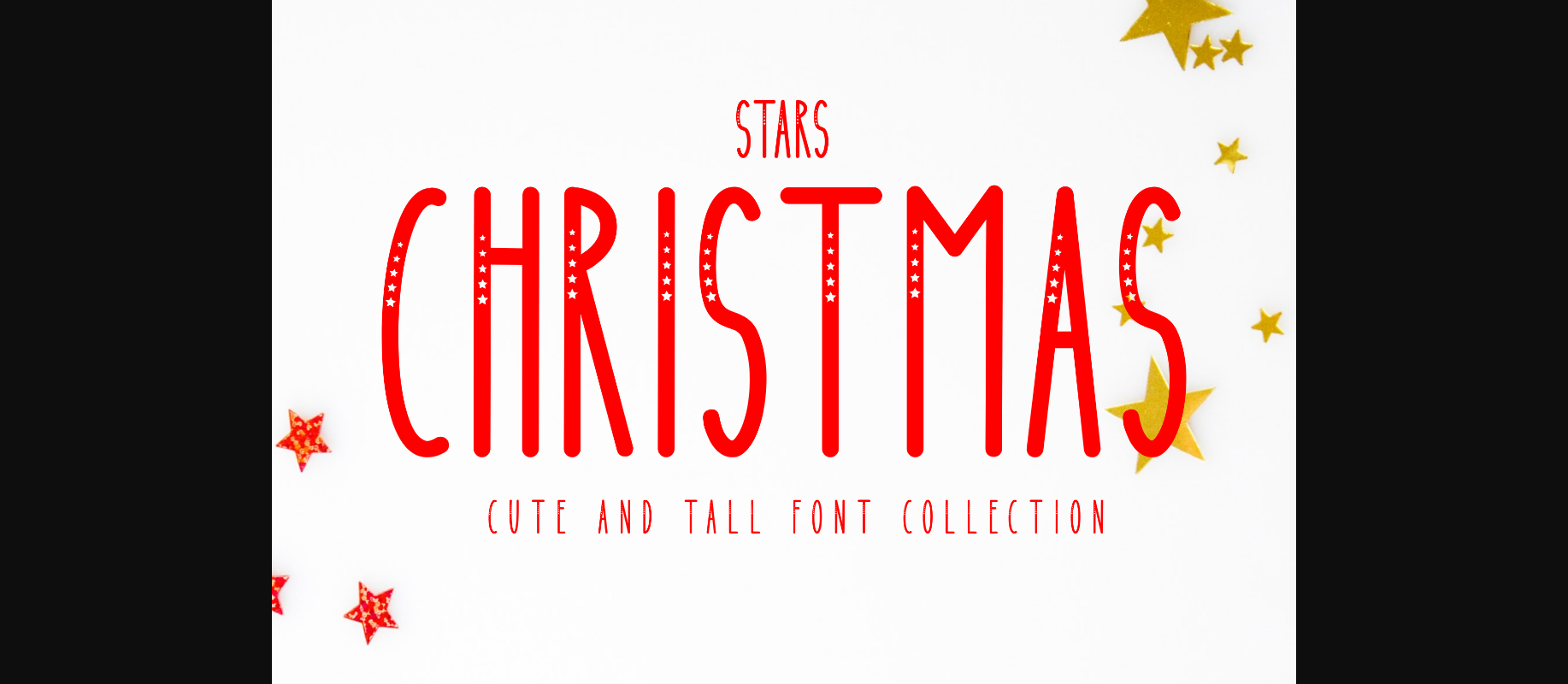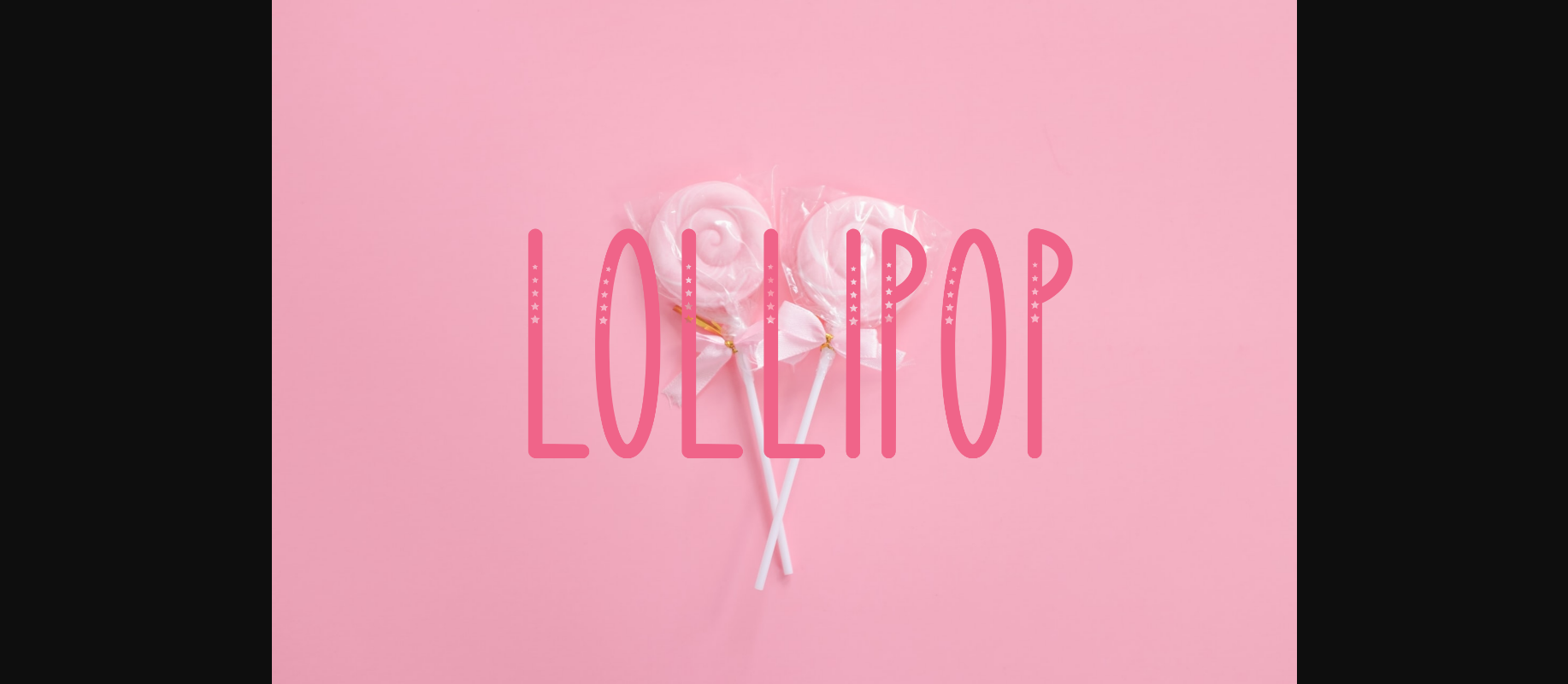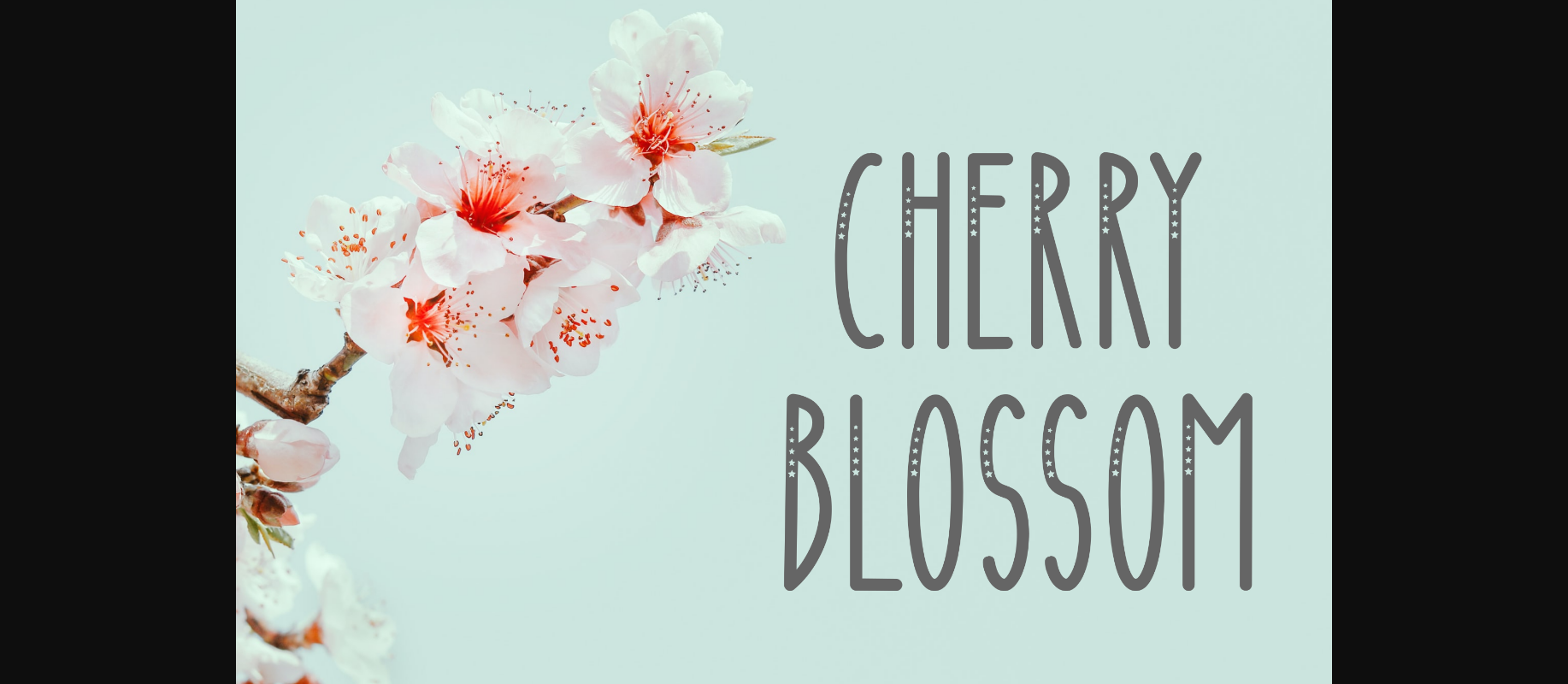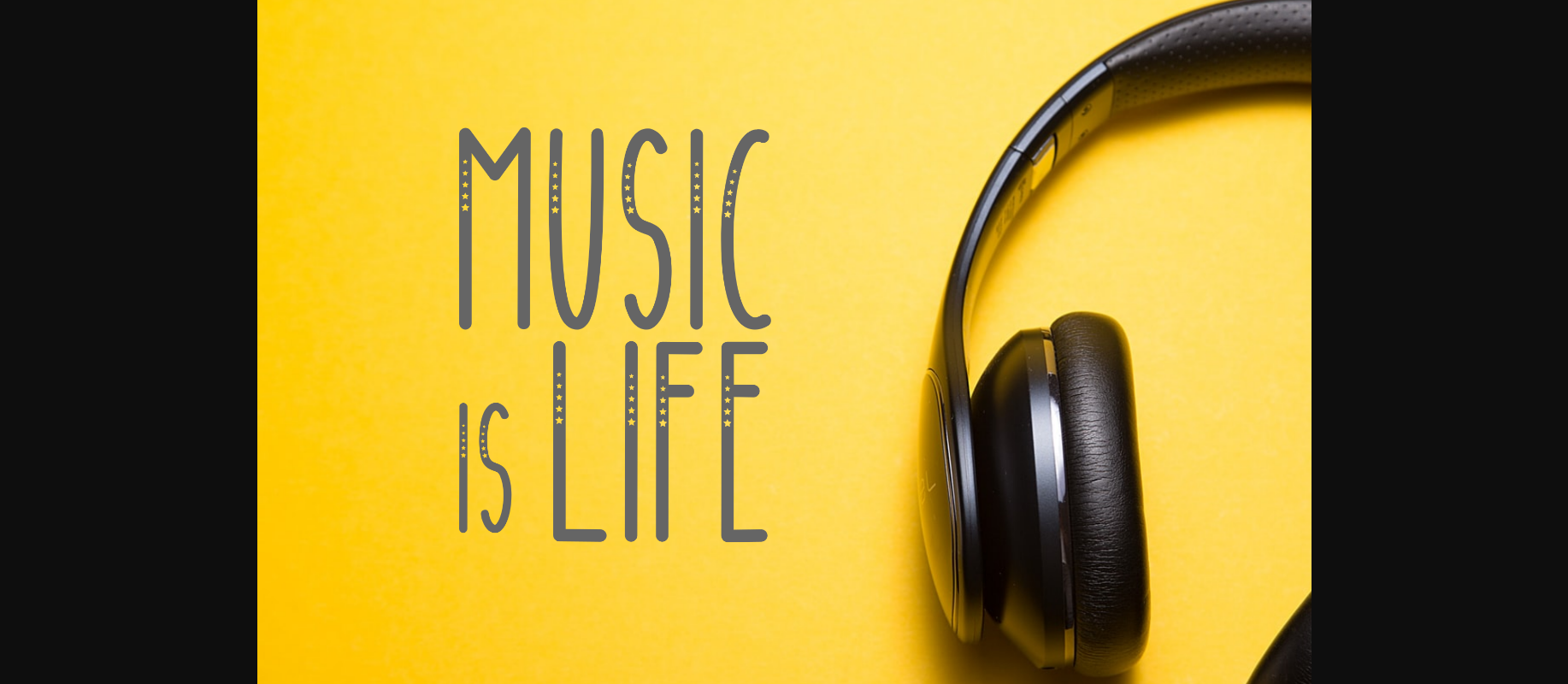
HomeDecorative FontsStars Christmas Font Decorative Fonts Stars Christmas Font FacebookXPinterestWhatsApp 1 of 6 ... Stars Christmas Font Poster 2... Stars Christmas Font Poster 3... Stars Christmas Font Poster 4... Stars Christmas Font Poster 5... Stars Christmas Font Poster 6... About Stars Christmas Font Stars Christmas is a tall, cute, and simple decorative font. Its natural and unique style makes it incredibly fitting to a large pool of designs. DOWNLOAD NOW People also explored Easter Font Negativo Font Sillvana Font Akin Font Read the Book Font Michella Font Balton Stencil Font The Regimen Font Jasmine Font 319 0 TagsStars Christmas Font Previous articleFlower Monogram FontNext articleHair Comb Font LEAVE A REPLY Cancel reply Comment: Please enter your comment! Name:* Please enter your name here Email:* You have entered an incorrect email address! Please enter your email address here Website: Save my name, email, and website in this browser for the next time I comment. Personal Use Free Adelaide Personal Use Free Read more about this font Crellia Script Personal Use Free Read more about this font Comic Caps Personal Use Free Read more about this font Critical Personal Use Free Read more about this font BLOG Elegant Wedding Invitation Fonts – Handwritten & Script Fonts Elegant Wedding Invitation Fonts Your wedding day is one of the most important moments of your life, and every detail matters—including your invitation design. Our... How to Cut Any Font on Cricut: Convert a Font to SVG (Free) Exploring Font Trends Modern Sans-Serif Fonts That Brands Love in 2025